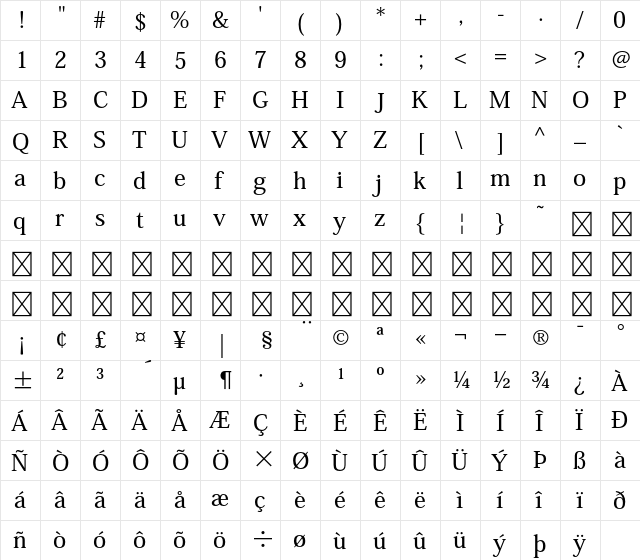
Heisei Mincho Std W5
Design Context for Heisei Mincho Std Typeface
Heisei Mincho Std is a composed and adaptable typeface that performs quietly and consistently across a wide range of design contexts.